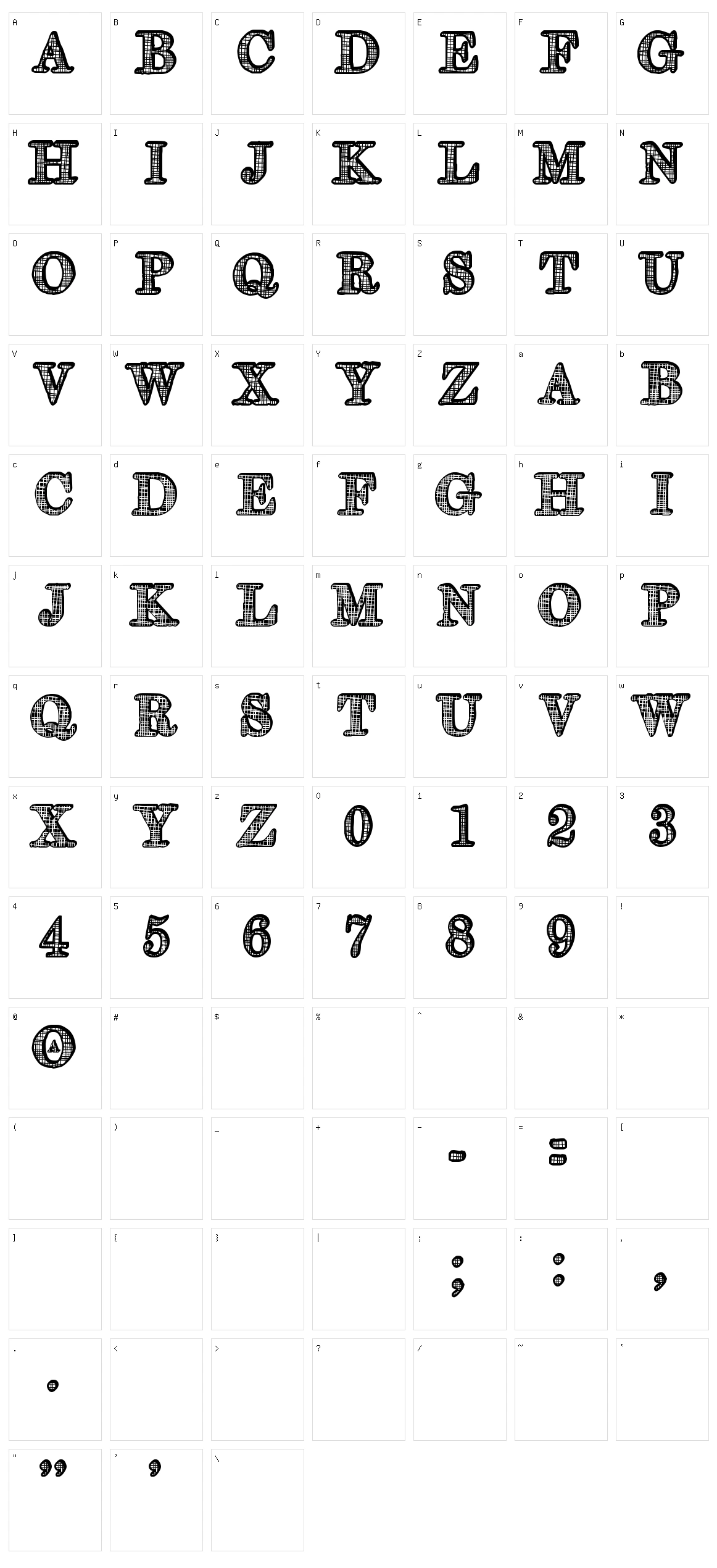
The free font Older ST is carefully designed by Southype, showcasing a thoughtful balance of creativity and usability and falls under the Decorative font style. When you download the ZIP file, it contains only 97.95 KB of font files, making it lightweight and quick to download. Please review the license details below to understand permitted usage and distribution rights. If license information is not available, we recommend using this font for personal projects only or contacting the author directly for commercial usage permissions.